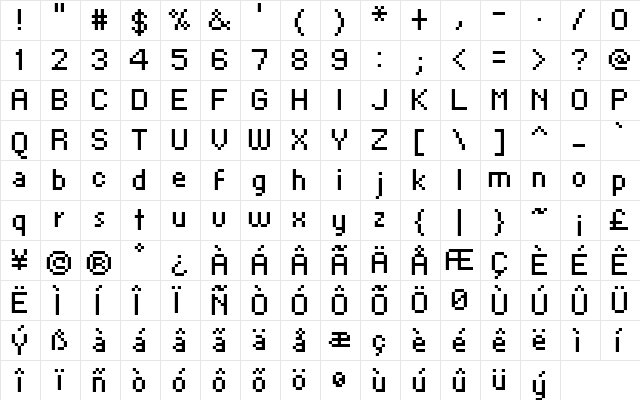
FFF Urban Regular Font Preview
FFF Urban Regular
Design Context for FFF Urban Typeface
FFF Urban takes a measured approach to typography — its balanced proportions and neutral character make it a reliable workhorse for both digital and print work.